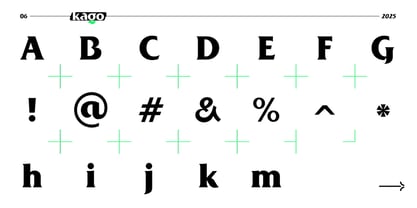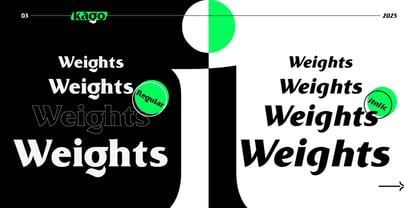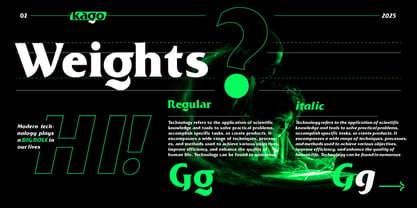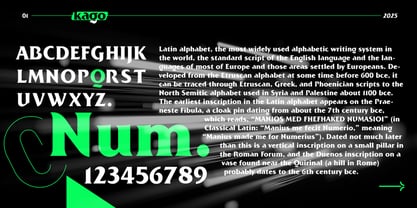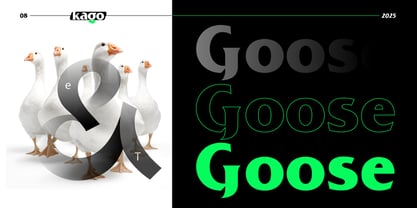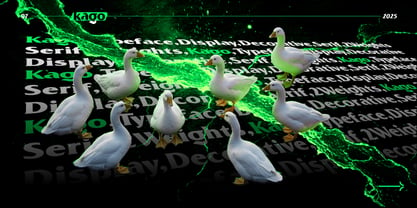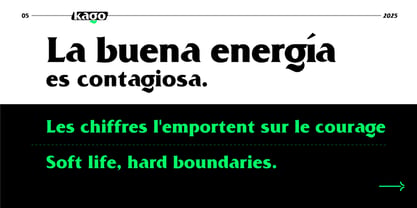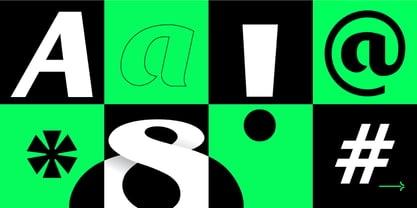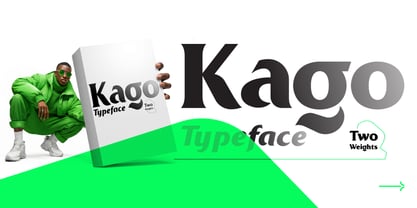
Kago
by Fo Da
The Kago Font Family was designed by Ahmed Eraqi, Nohamad Foda and published by Fo Da. Kago contains 2 styles and family package options. More about this family
Kago is a modern, high-contrast Display Serif typeface designed for maximum visual impact and immediate attention. It boldly fuses the timeless structure of classic Old Style typography with sharp, contemporary geometric edges and unexpected, playful flourishes. Kago is a statement font, characterized by its dramatic thick-and-thin stroke variation and its unique, strong serifs. Key Features & Design Philosophy: High Contrast & Drama: The extreme difference between the thick vertical stems and the thin horizontal strokes gives Kago a sense of luxury, power, and high readability at large sizes. Distinctive Serifs: Kago features robust, confident serifs and subtle, unconventional terminals (like the curved hook on the 'G' or the base of the 'W'), injecting a fresh, unique personality into the classic serif form. Two Core Weights: The family includes the foundational Regular weight for solid, impactful headlines, and the dynamic Italic weight, which offers an added sense of movement and flair while maintaining the font’s inherent boldness. Display Focus: Optimized for use in large settings, Kago is perfect for brand identity, editorial titles, movie posters, luxury product packaging, album art, and any design project that demands a distinct and memorable voice. Kago is more than just a font; it is visual energy. Use it to inject good momentum and make your designs contagious.
Designers: Ahmed Eraqi, Nohamad Foda
Foundry: Fo Da